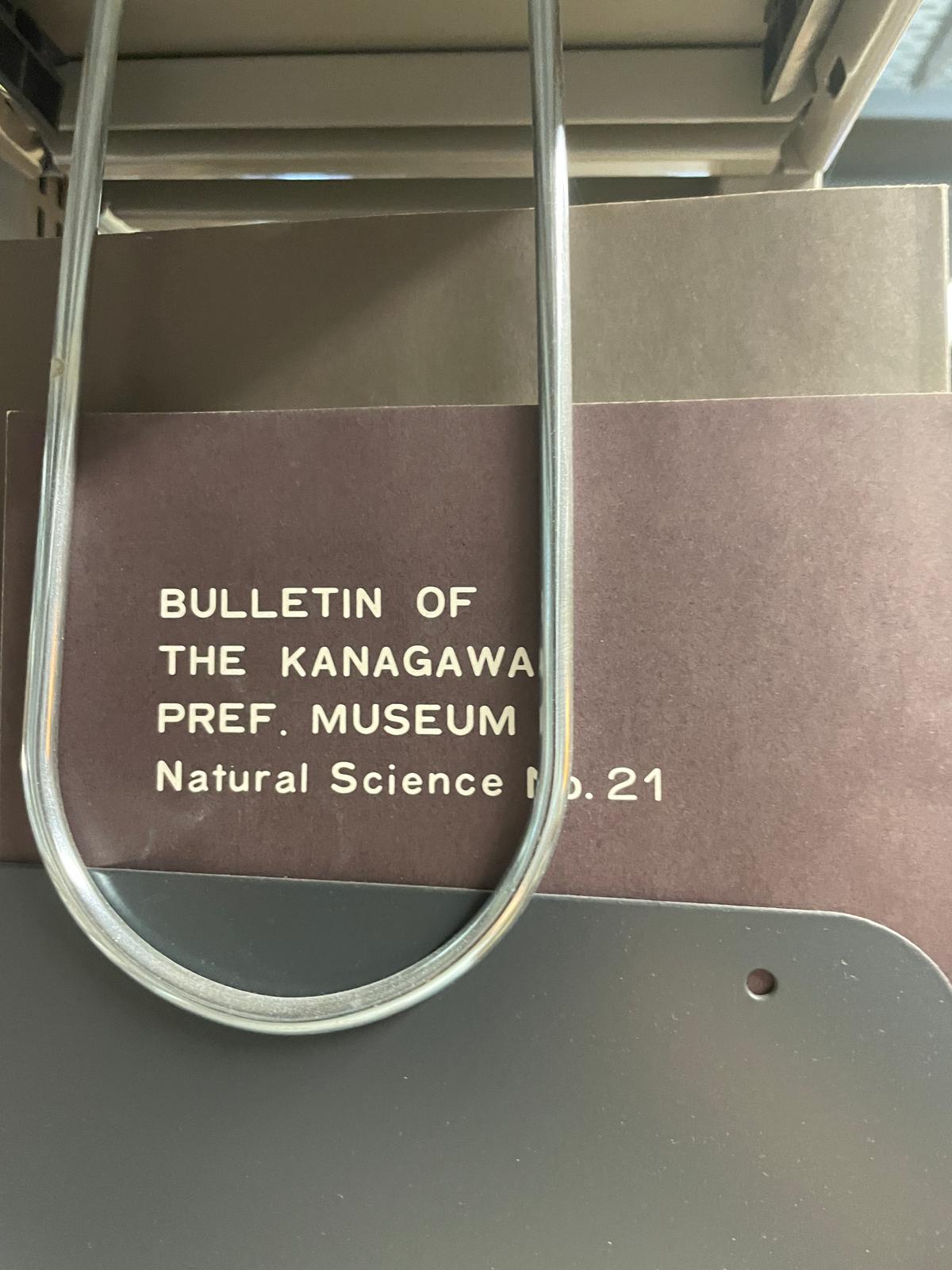
I can imagine that it’s the Latin part of a Japanese rounded sans (Maru Gothic), but I’m not finding a match.
I found a PDF of one of their publications—maybe a bolder weight of HG丸ゴシックM-PRO (HG round gothic M-PRO)?